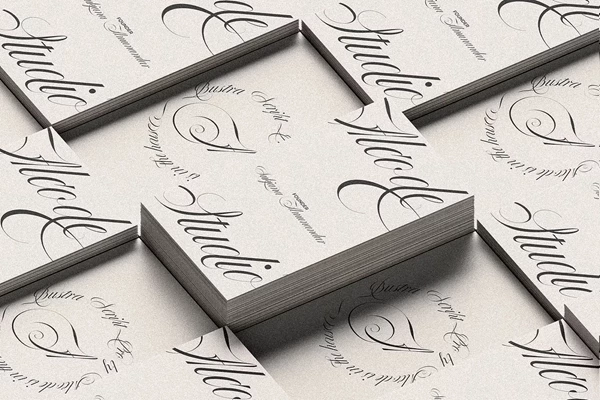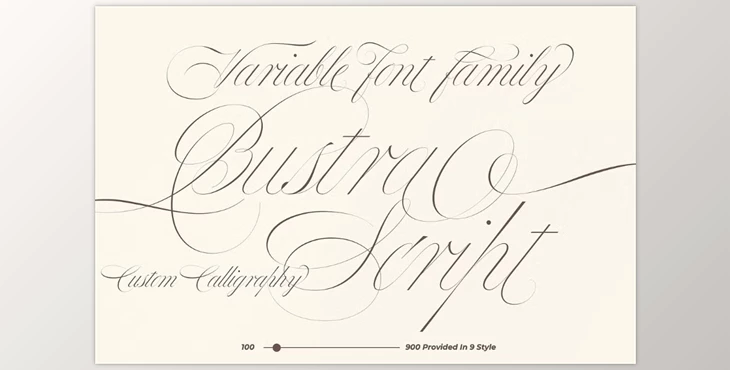
Bustra Script Pro Font CreativeMarket - 91936570:
Bustra Script is the perfect choice for designers looking to infuse a sense of tradition into their work. This luxury and classy styled font family comes with 9 thicknesses and a variable format compatible across many platforms.
The font also includes hand-crafted ligatures and custom characters, allowing it to pair seamlessly with media such as wedding invitations, book covers, brands, business cards, etc. OpenType features and multilingual support are available, too! Even without the necessary software, Mac and Windows users can still access the font's stylistic features through Font Book and Character Map.